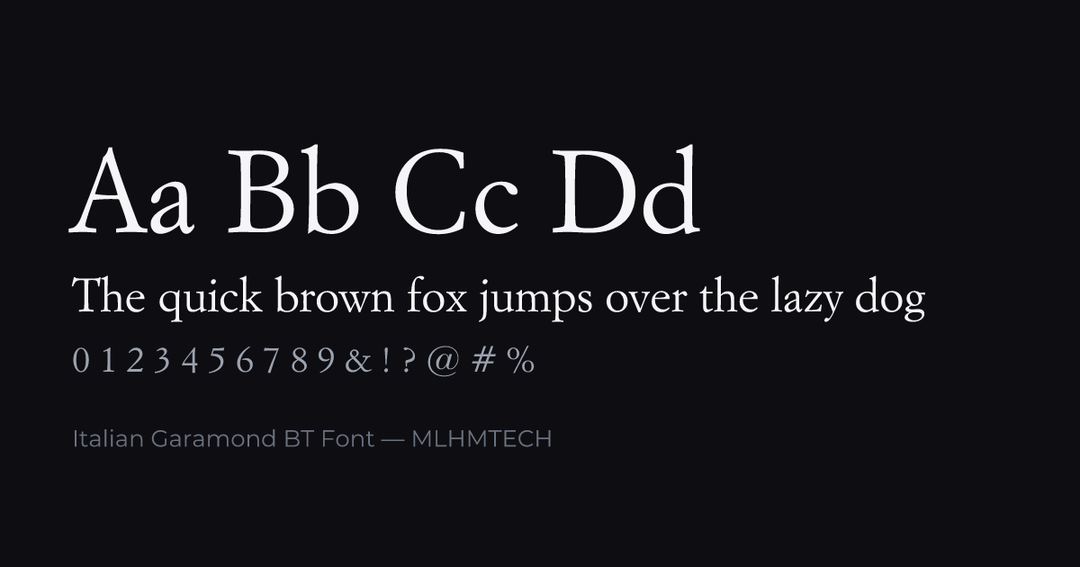
Italian Garamond BT Font
Italian Garamond BT is a classic serif typeface with elegant curves and high readability, ideal for editorial layouts, branding, and print materials.
Italian Garamond BT is a refined serif font that brings a touch of classic sophistication to any project. Its graceful letterforms and balanced proportions make it a versatile choice for both digital and print design. Whether you're creating a timeless logo, an elegant wedding invitation, or a professional editorial layout, this font adds a sense of heritage and quality.
Ideal for use in branding, publishing, advertising, and any design that requires a touch of elegance and tradition.